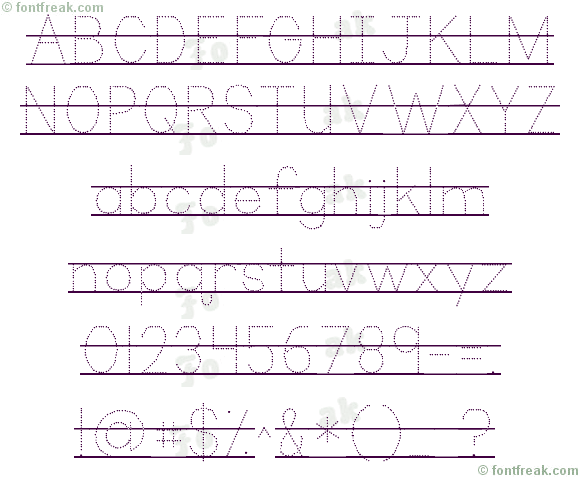
KG Primary Dots Lined Alt is a delightful handwritten font that captures a playful yet sophisticated essence. Designed by Kimberly Geswein, this font features a unique dotted line style that adds a whimsical touch to any design. The strokes are consistent in weight, maintaining a clean and organized appearance while the dotted lines create an engaging contrast, making it visually interesting without overwhelming the viewer. The spacing between letters is ample, ensuring readability while exuding a friendly vibe.
This font is particularly well-suited for a variety of creative applications. It can enhance the charm of wedding invitations, providing a lighthearted yet elegant feel. Additionally, it works wonderfully for children's book covers, where its playful characteristics can resonate with young readers. Restaurant menus can also benefit from this font, as it adds an inviting atmosphere and makes the menu items stand out. Moreover, content creators looking to add a personal touch to their blogs or social media posts will find KG Primary Dots Lined Alt an excellent choice for creating eye-catching graphics.
The target audience for this font includes graphic designers, small business owners, and content creators who seek to infuse their projects with personality and charm. Its versatility makes it an ideal choice for anyone looking to make their designs more approachable and engaging.
What truly sets the KG Primary Dots Lined Alt font apart is its ability to balance professionalism with a playful spirit. This font is not only visually appealing but also functional, making it a valuable addition to any designer's toolkit. For those interested, the KG Primary Dots Lined Alt font free download is readily available, allowing you to explore its creative possibilities without any cost.